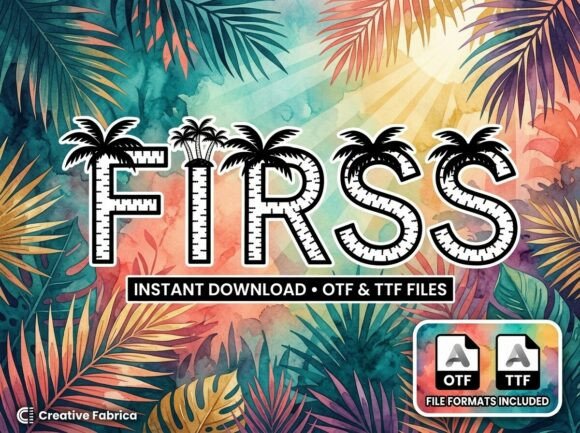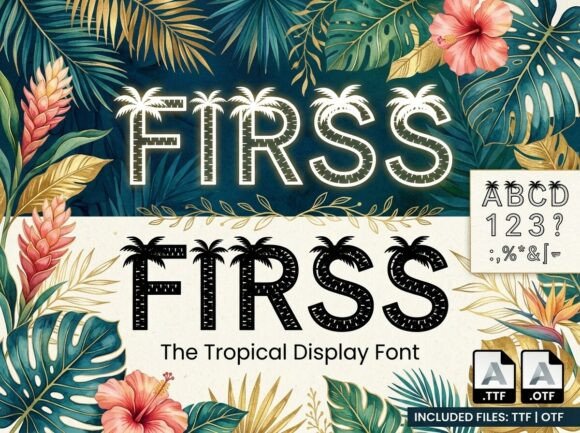
Escape to Paradise with Firss: The Ultimate Tropical Display Typeface
Are you looking for a font that captures the essence of a tropical paradise? Look no further than Firss, a sun-soaked display typeface that embodies the carefree spirit of a coastal vacation. This creative font is designed to transport you to a world of swaying palm trees, pristine sandy beaches, and crystal-clear waters.
A Unique and Hand-Drawn Design
Firss is more than just a font – it’s a work of art. Each letterform is meticulously crafted from detailed palm tree trunks, topped with swaying tropical fronds and anchored by small sandy islands. The result is a truly unique and eye-catching design that’s sure to make your branding, logos, and social media headers stand out.
Perfect for Coastal-Inspired Projects
Whether you’re designing a logo for an independent beach resort, a summer festival, or a surf shop, Firss is the perfect choice. Its rhythmic island vibes and hand-drawn coastal details evoke the feeling of a tropical getaway, making it ideal for any project that needs a touch of coastal charm.
Key Features of Firss
- Unique letterforms: Each letter is built from palm tree trunks, tropical fronds, and sandy islands, creating a truly one-of-a-kind design.
- Hand-drawn details: The font features intricate, hand-drawn details that give it a personal and organic feel.
- Tropical vibes: Firss captures the essence of a tropical paradise, making it perfect for coastal-inspired projects.
- High-impact headers: The font is designed to make a statement, making it ideal for social media headers and other high-impact applications.
What Sets Firss Apart
In a world of generic fonts, Firss stands out from the crowd. Its unique design and attention to detail make it a true standout. Here are just a few things that set Firss apart:
- Originality: Firss is a truly original design, ensuring that your project will stand out from the crowd.
- Customizability: The font’s hand-drawn details make it easy to customize and adapt to your project’s needs.
- Versatility: Firss can be used for a wide range of projects, from branding and logos to social media headers and more.
Tips for Using Firss
To get the most out of Firss, here are a few tips to keep in mind:
- Use it sparingly: Firss is a bold font, so use it sparingly to make a maximum impact.
- Experiment with colors: The font’s tropical vibes lend themselves well to bright, bold colors.
- Pair it with a simple font: Firss is a statement font, so pair it with a simple font to create visual balance.
Firss is more than just a font – it’s a gateway to a tropical paradise. With its unique design, hand-drawn details, and tropical vibes, it’s the perfect choice for any project that needs a touch of coastal charm. So why wait? Escape to paradise with Firss and make your project stand out from the crowd.